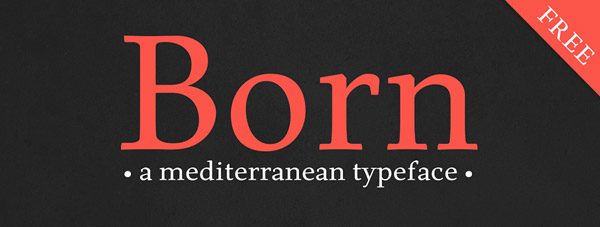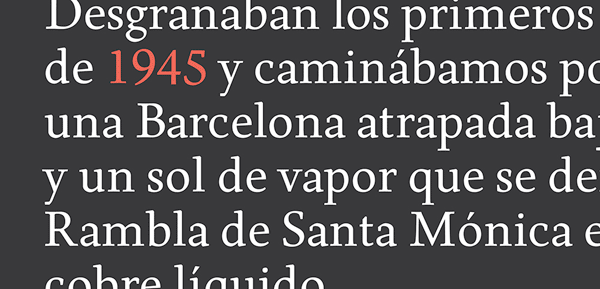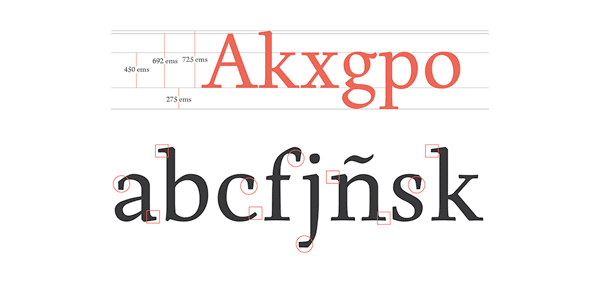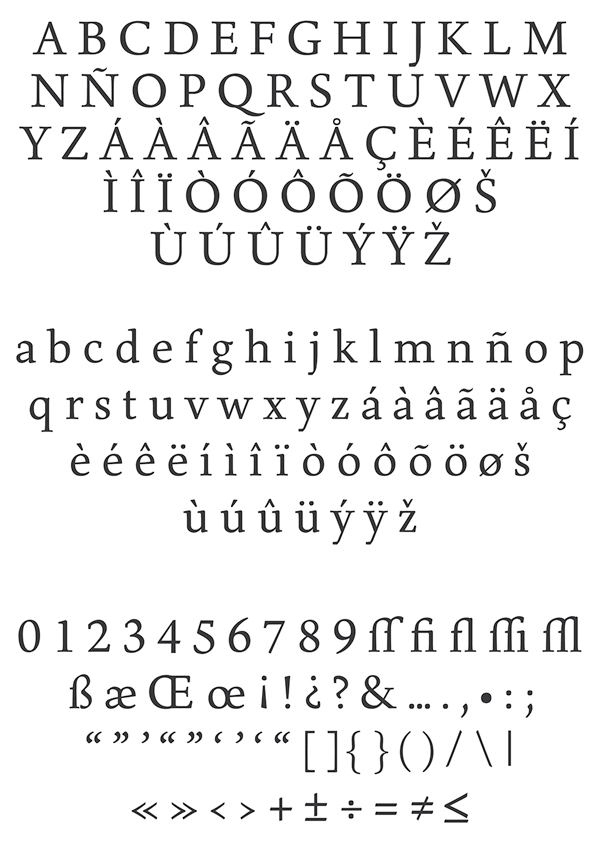
Graphic designer Carlos de Toro has created the free Born typeface. This serif humanist font combines traditional shapes with new typographic features. Born comes with 262 glyphs in total. It includes several features such as alternates, ligatures, uppercase numerals and symbols as well as punctuation marks. The free font offers a well legibility even at small sizes. The Born typeface is available as free download. Just pay with a tweet.